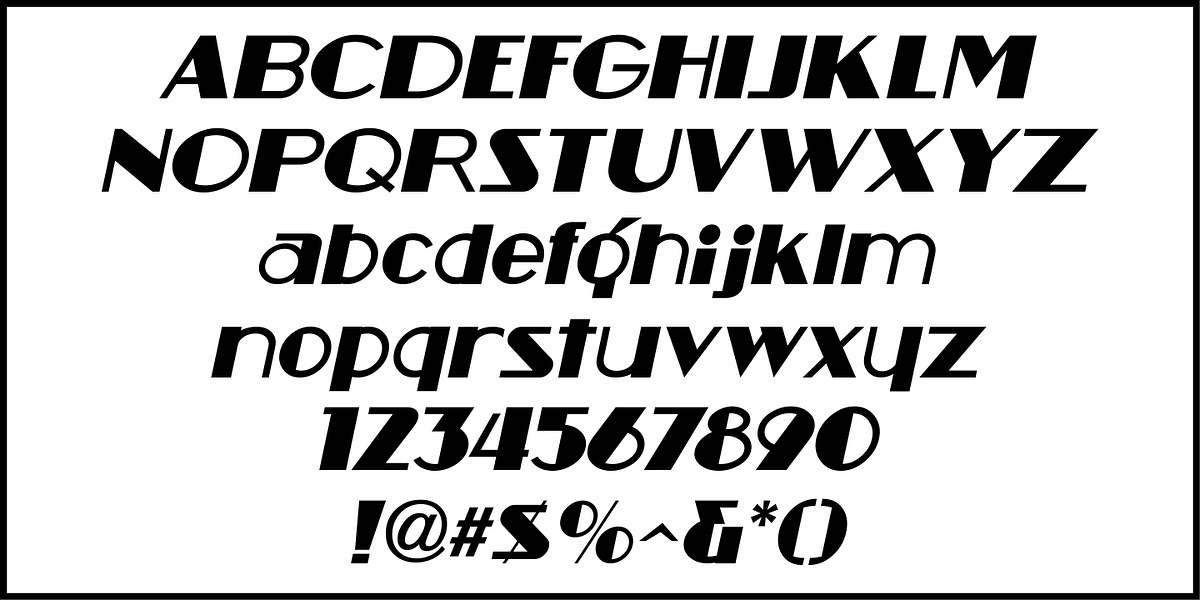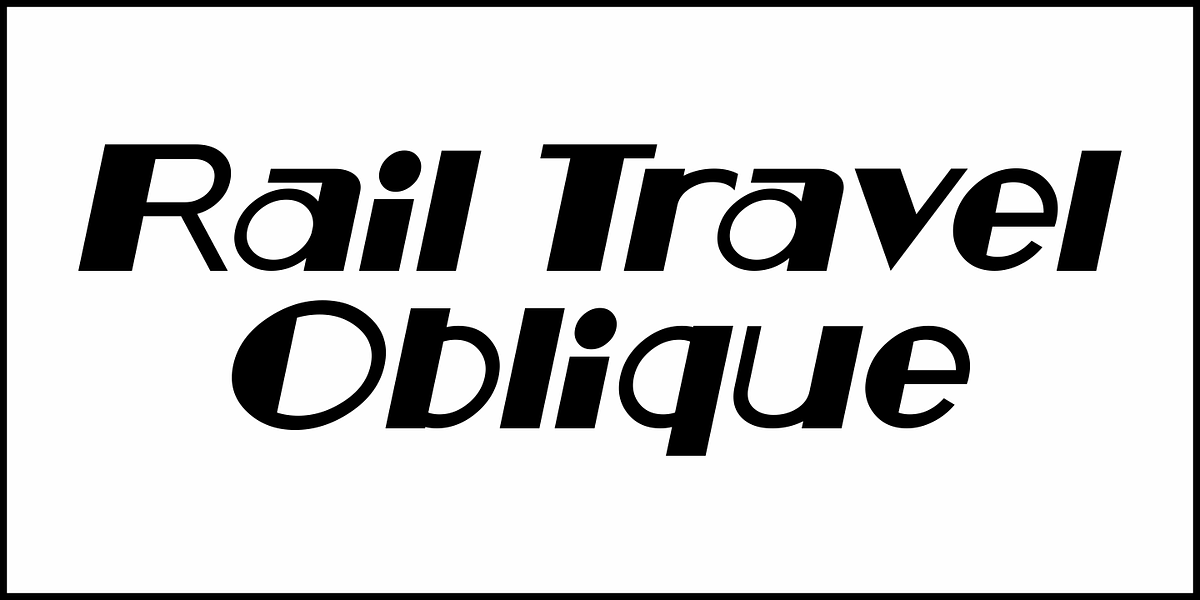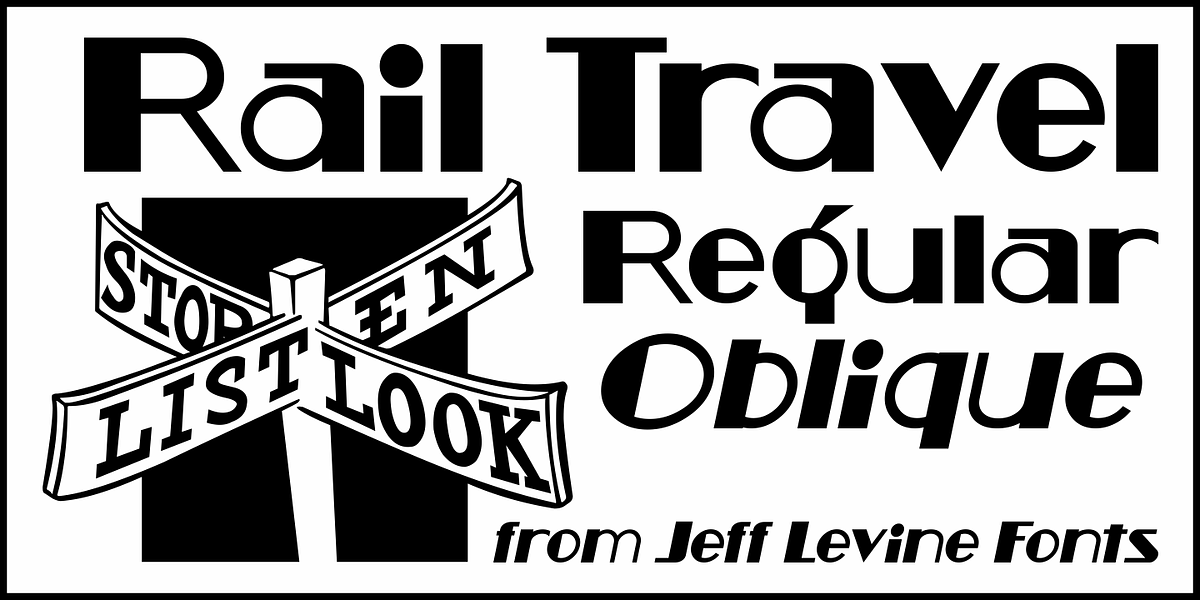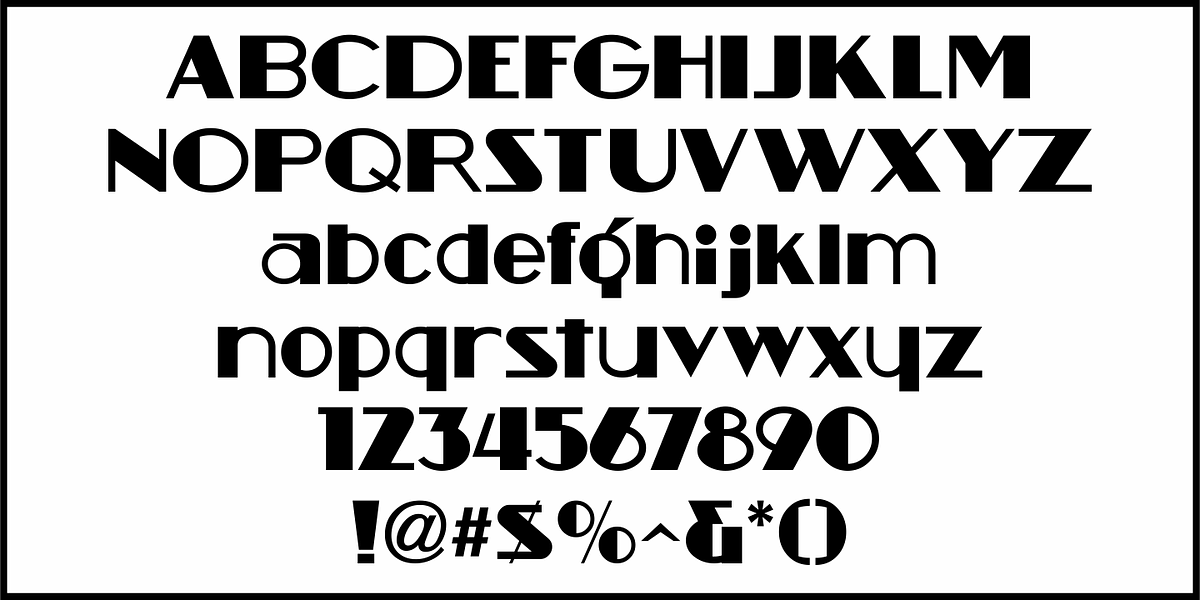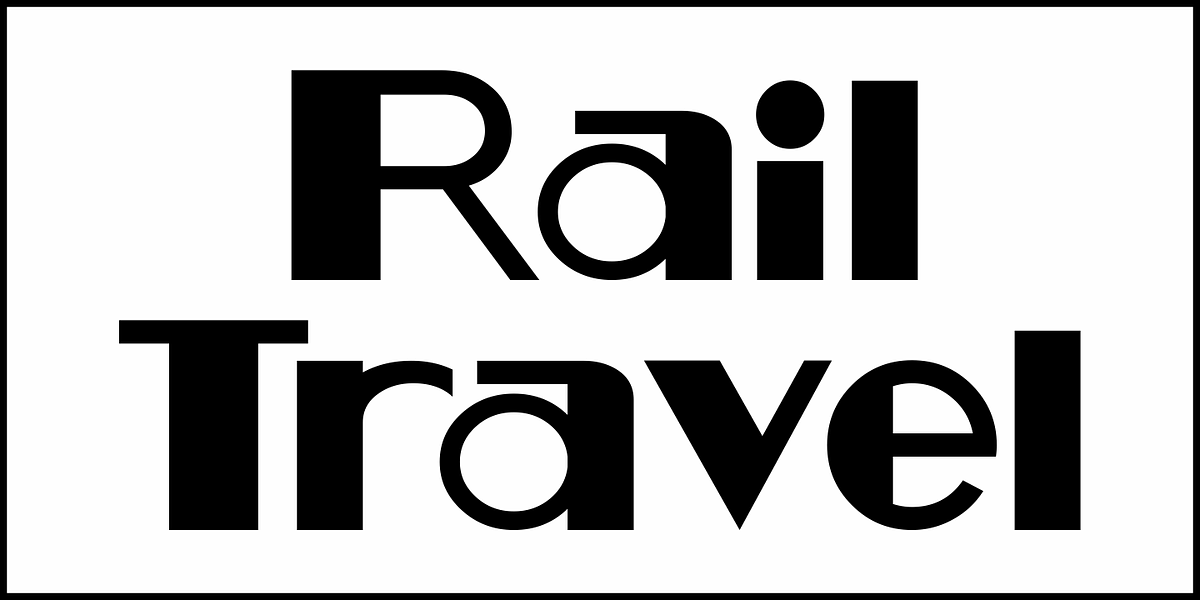
Rail Travel JNL
Here’s yet another interpretation of the classic “thick and thin” sans serif lettering most popular during the Art Deco era.
This particular design comes to you through the courtesy of a hand lettered 1930s travel poster from the Pennsylvania Railroad. Some capitals are much wider than others, while the lower case ‘i’ is somewhat truncated.
Rail Travel JNL is available in both regular and oblique versions.